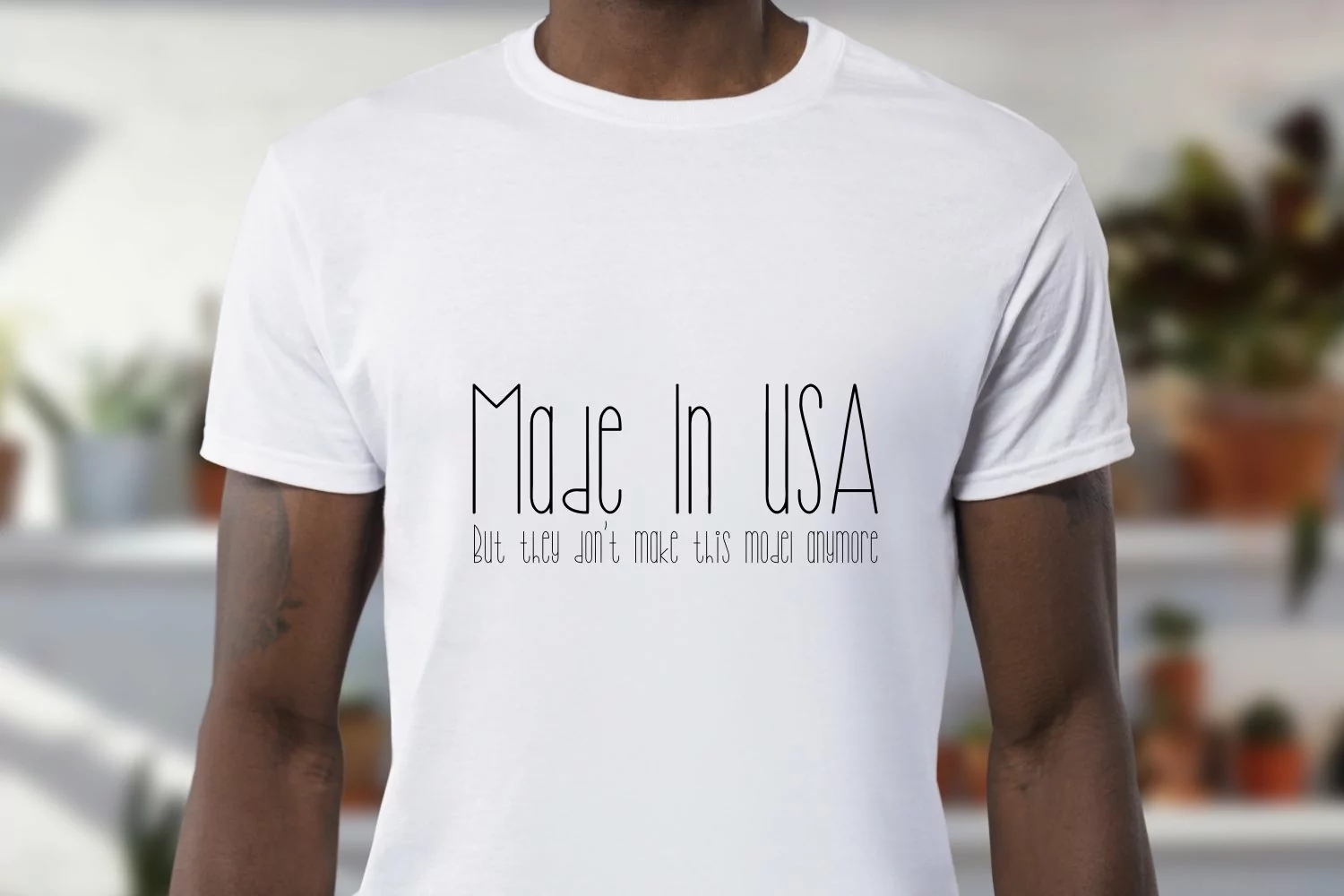
Twinkle is a beautiful, hand-drawn font which comes in 3 versions, normal, italic and bold. Perfect for invitations, prints, greeting cards, and so much more!
Twinkle can be used for any projects and in logos.